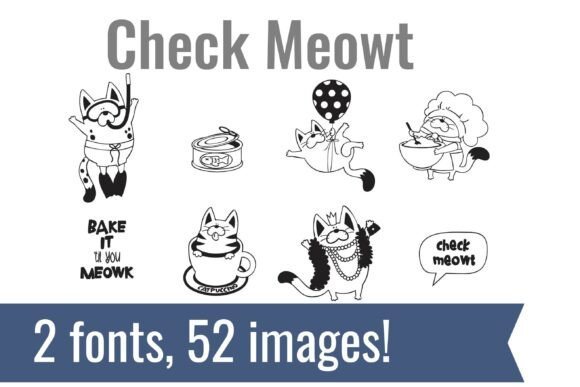
Unleash Your Creativity with the Purr-fect Font Bundle
Have you ever spent hours searching for the perfect icons and graphics to elevate your designs? The frustration is real, but what if you could unlock a world of creative possibilities with just a few clicks? That’s exactly what the Check Meowt Dingbats Font offers – a bundle of two perfectly coordinated dingbat fonts that will revolutionize your design process.
With Check Meowt Dingbats Font, you’ll gain access to dozens of cohesive, scalable designs featuring adorable cat images and cat-related lucky symbols. From crafting charming seasonal icons for holiday cards to creating intricate frames for invitations, this font bundle has got you covered. As a designer, you’ll appreciate the time-saving convenience of having pre-made images at your fingertips, allowing you to focus on what matters most – bringing your vision to life.
Check Meowt Dingbats Font Key Features
- Font Family: Check Meowt Dingbats is a unique dingbat font designed for creative and playful purposes.
- Character Count: The font contains a wide range of characters, including emojis, symbols, and icons, totaling over 1,000 glyphs.
- Unique Characteristics: The font features a fun, cartoonish design with a focus on cat and animal-themed elements, making it perfect for projects requiring a lighthearted tone.
Designer Review: “Check Meowt Dingbats Font”
Overall, I’m torn about this font – it’s a unique addition to any design project, but it comes with some limitations. ✨ The playful, whimsical feel of the font is sure to bring a smile to the faces of your clients or users. The varied set of symbols and icons makes it perfect for social media graphics, memes, or even kids’ educational materials.
- ✨ The font’s versatility in design applications is a major plus.
- ✨ The font’s uniqueness makes it stand out from more traditional fonts.
- ✨ The font includes a wide variety of fun symbols and icons.
However, there are some issues that need to be addressed: ⚠️ The font can be a bit too playful for formal or professional projects. ⚠️ Some of the symbols can be difficult to read or understand at smaller sizes. ⚠️ The font’s unique design makes it harder to pair with other fonts, which can limit its use in certain design contexts.
In conclusion, while “Check Meowt Dingbats Font” is a fun and unique addition to any design project, it’s not suitable for every occasion. Use it sparingly and with caution, and you’ll be sure to get the desired effect.
Some common use cases for the Check Meowt Dingbats Font include:
– Creating fun and playful social media graphics.
– Designing custom invitations and party decorations.
– Adding a playful touch to children’s educational materials.
– Creating whimsical and eye-catching advertisements.